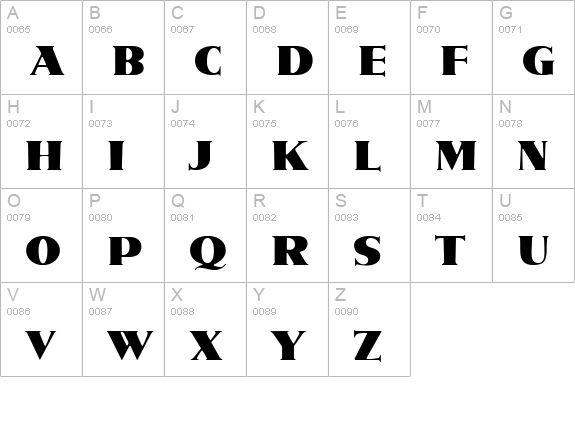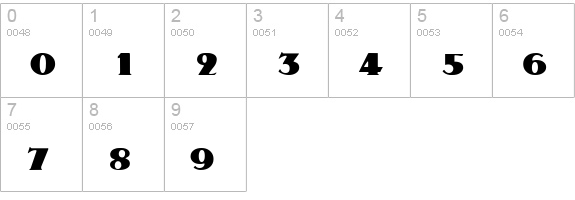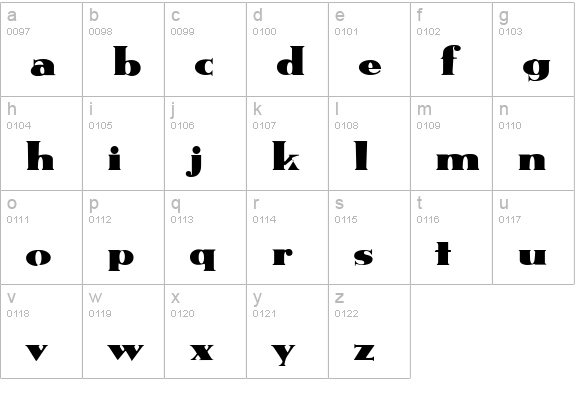
M691-Deco-Regular Font Details
M691-Deco-Regular is the standard, neutral variant in the M691 typeface family \xE2\x80\x94 well suited to general body text, paragraphs, and standard typographic work.
M691-Deco-Regular font is a striking and elegant typeface that exudes a sense of sophistication and style. Its sleek and modern design is perfect for adding a touch of glamour to any project. With its clean lines and geometric shapes, this font is ideal for creating eye-catching headlines, logos, and invitations. The M691-Deco-Regular font is not only visually appealing but also highly versatile, making it suitable for a wide range of design applications. Whether you are working on a branding project, editorial design, or web design, this font will surely make a statement. Best of all, M691-Deco-Regular font is available for free download at FontsMarket.com. This means you can easily access this beautiful font and use it in your projects without any cost. Don't miss out on the opportunity to enhance your designs with the elegance and charm of M691-Deco-Regular font.